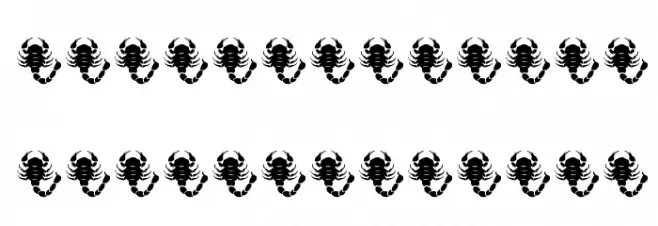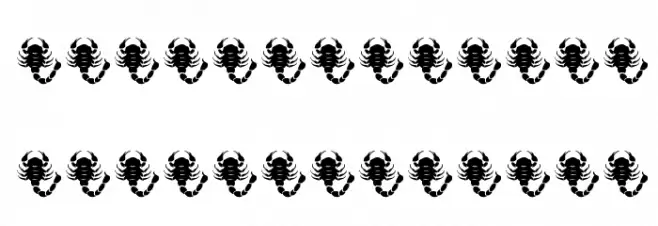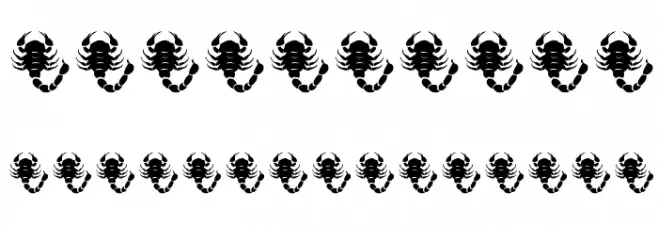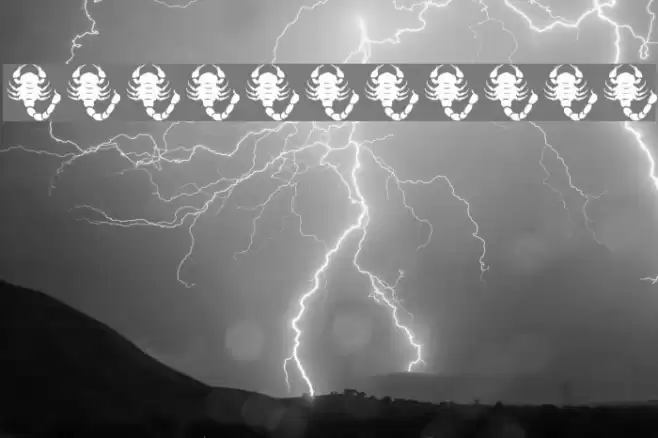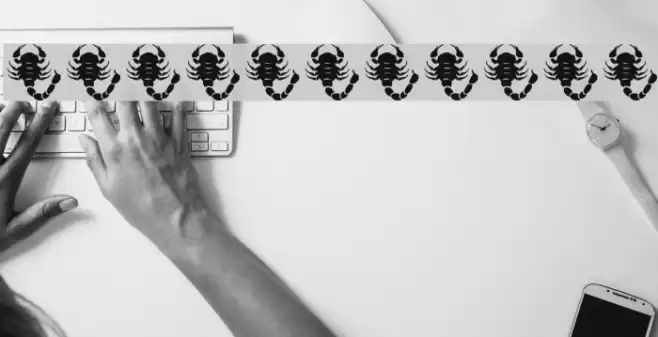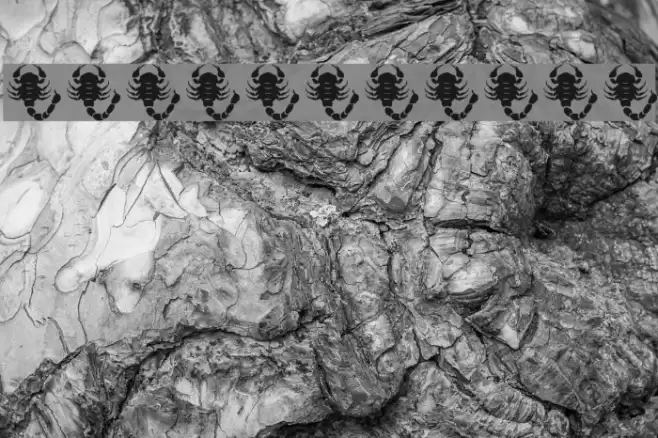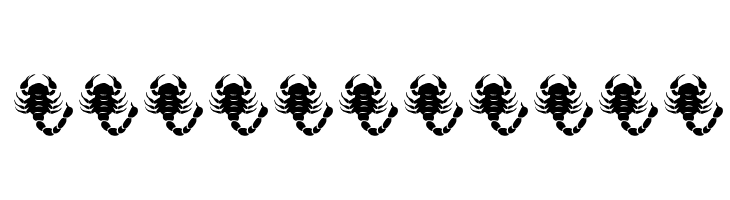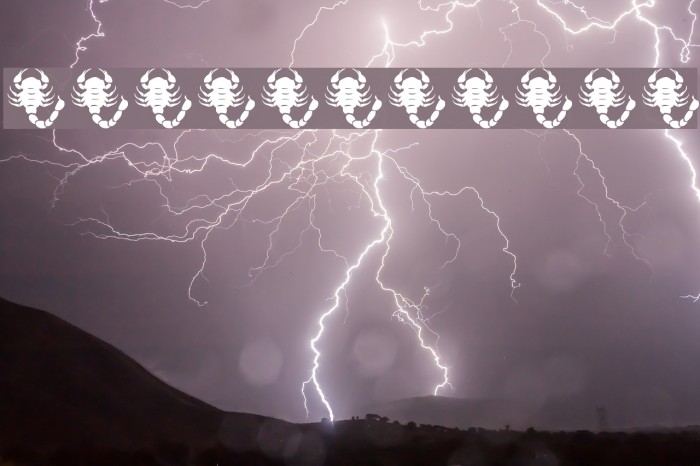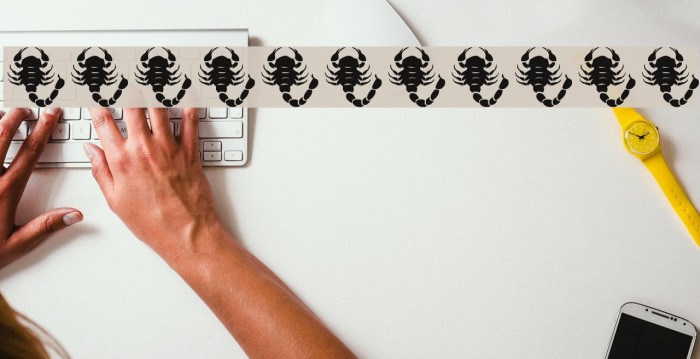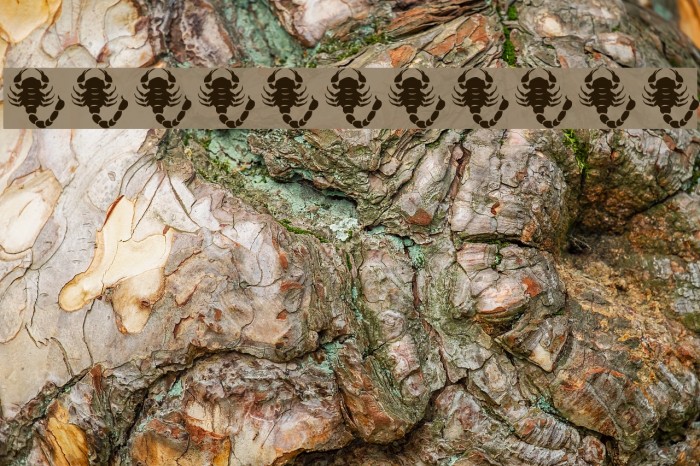
Zodiac Nice
A decorative symbol font featuring a stylized scorpion glyph repeated in various sizes, with bold, high-contrast strokes and a symmetrical, graphic appearance.
A bold, decorative symbol font with a scorpion motif.
- Proposed Projects: Astrology-themed designs, posters, tattoos, branding for zodiac-related products, decorative borders.
- Contrast: High
- Overall Style: Decorative, Graphic, Thematic
- Use Case: Logos, Decorative elements, Themed graphics